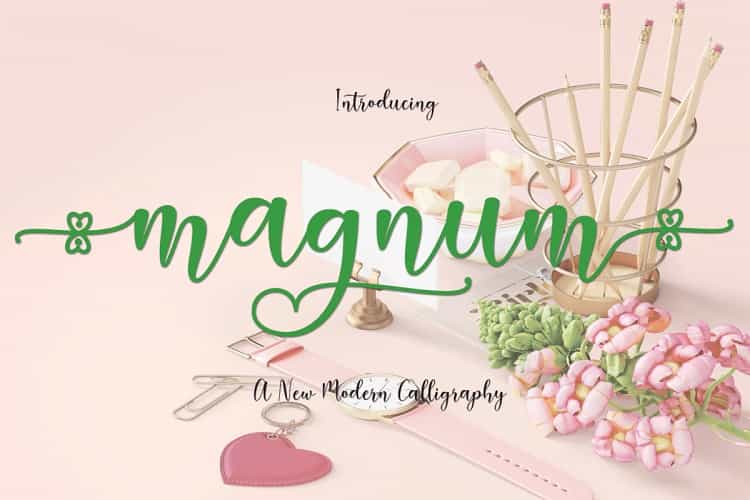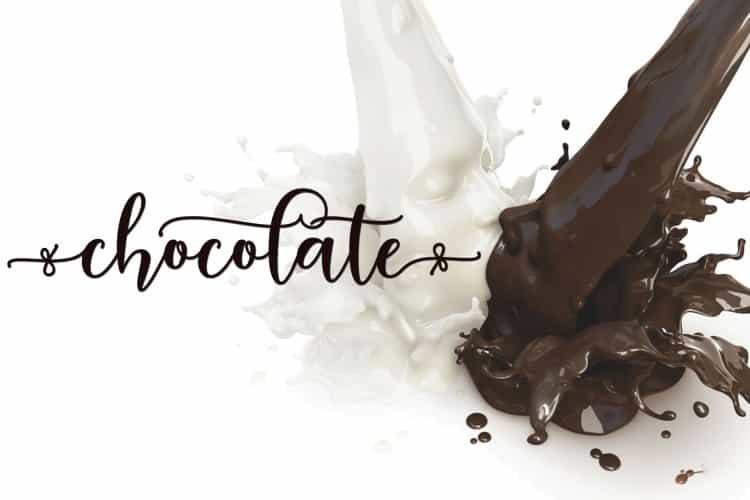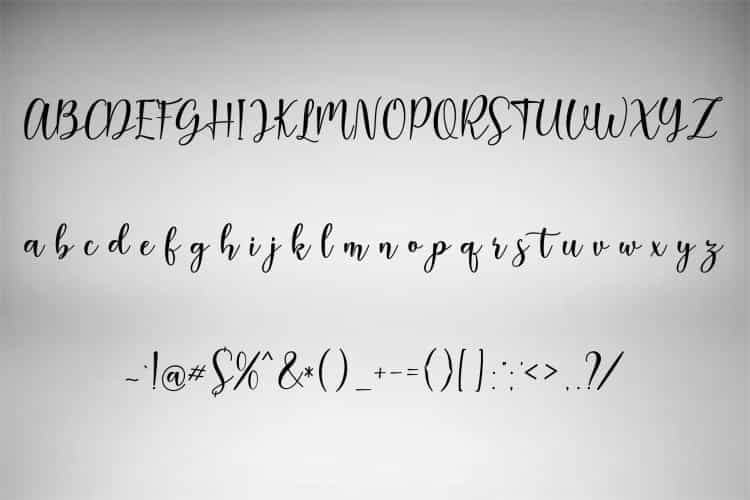
Discover Magnum Modern Calligraphy Font, part of the Calligraphy collection—a versatile and unique font perfect for adding a personal touch to your projects. Download it for free and enjoy crafting designs with style, from invitations to social media posts. This font is available exclusively for personal use, giving you the freedom to create without limits. Unlock your creativity with Magnum Modern Calligraphy Font today!
Magnum A new, clean, and innovative script font with handwritten calligraphy that has added decorations on the characters and base! Lovely for invitations like greeting cards and business cards, business branding materials, posters, quotes, and more! !